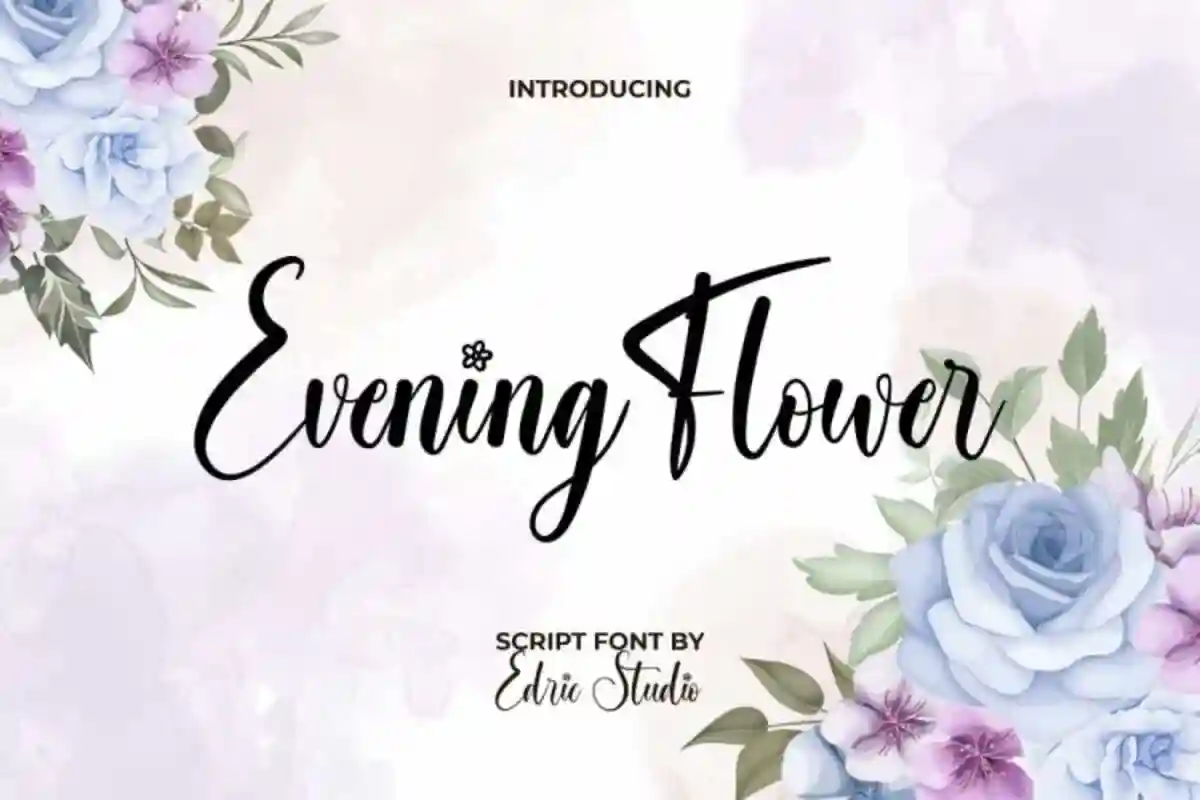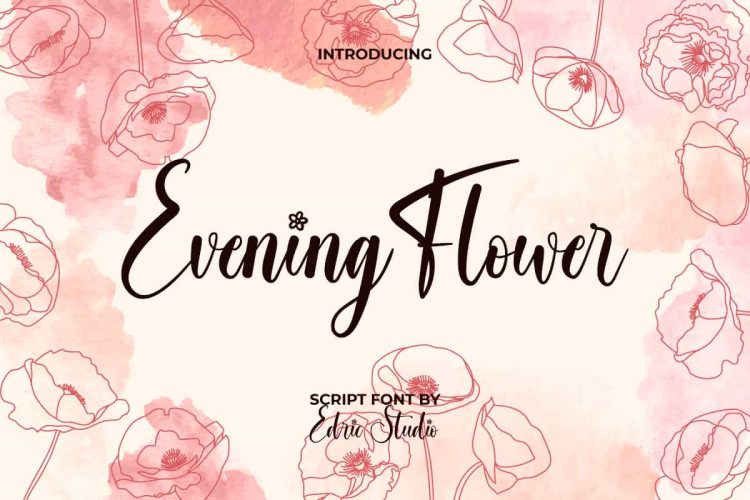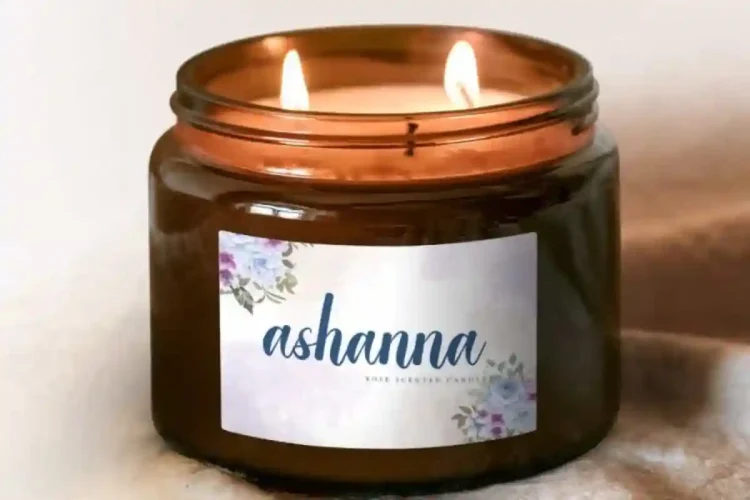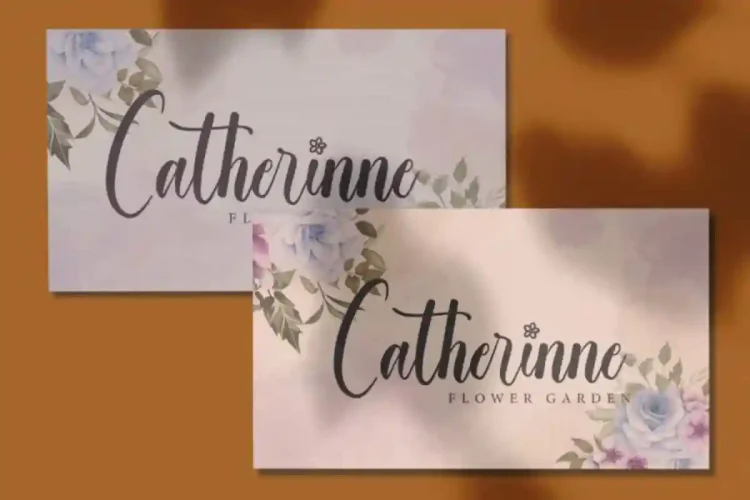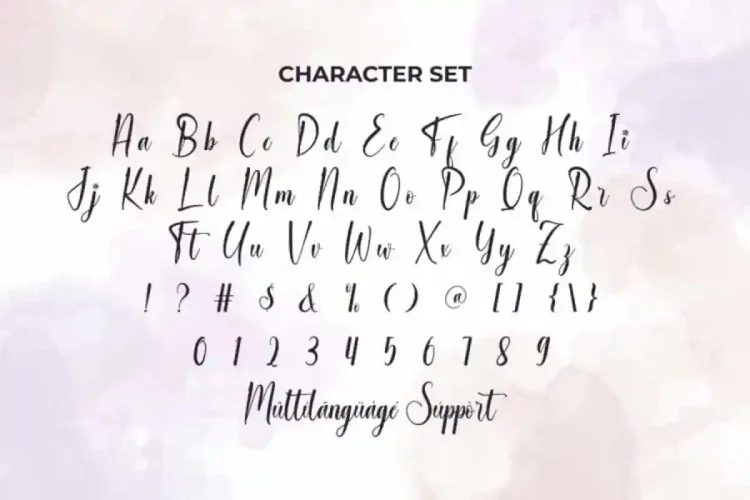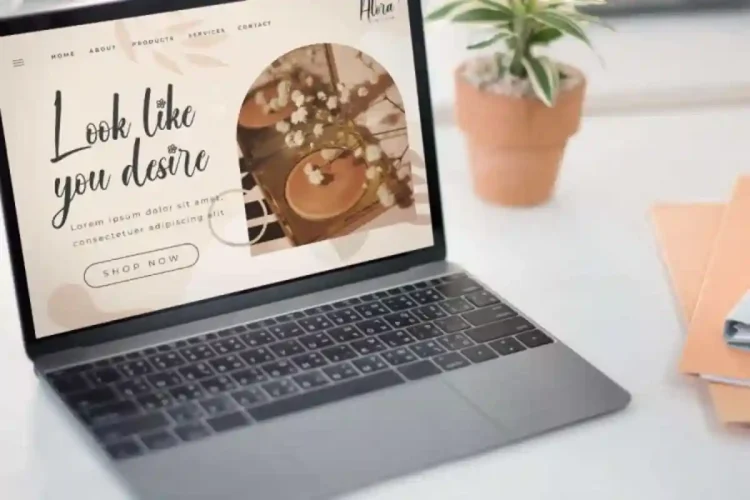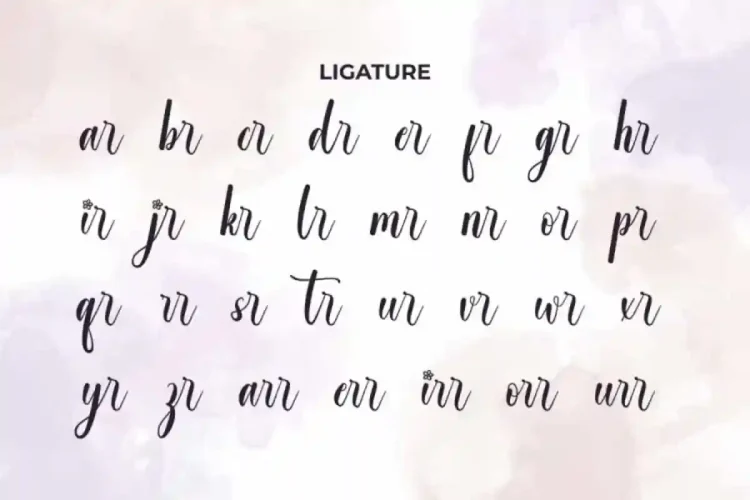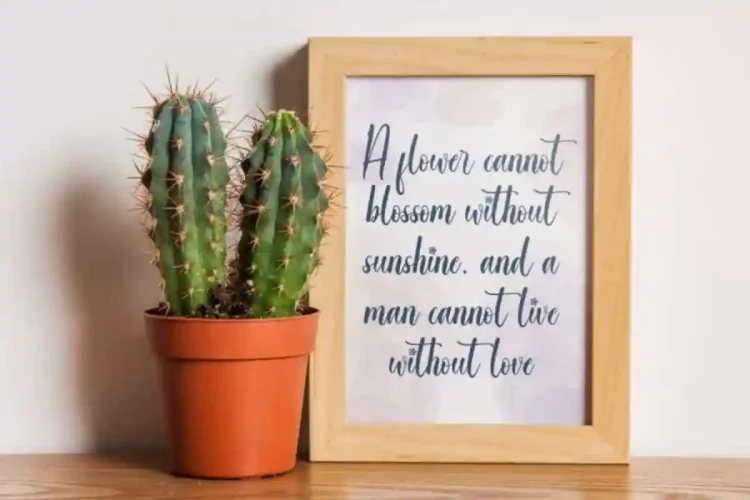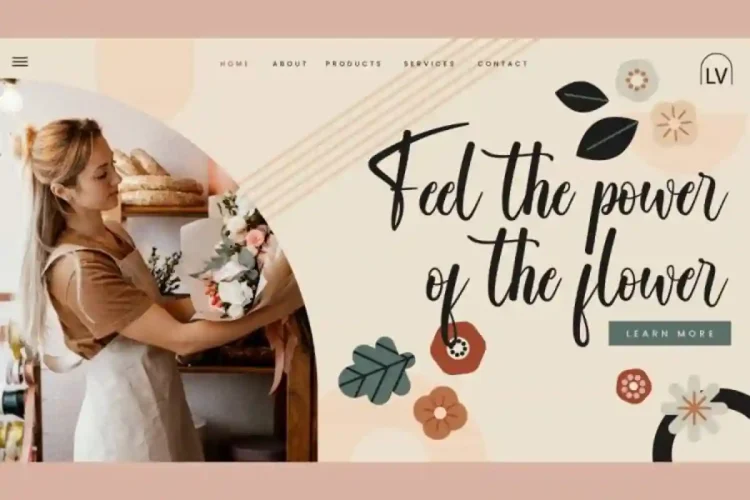
Evening Flower Script Font
Evening Flower Script Font is a beautiful script font with lovely calligraphic style. Bring a touch of beauty and elegance to your creative projects with a graceful script font designed to flow like flowers swaying in the wind.
Evening Flower Script Font with smooth strokes and stylish details, Evening Flower Font instantly elevates your designs. It has a full set of Basic Uppercase and Lowercase Characters, Numbers, Punctuation and Symbols, and Ligature.
Evening Flower Font is a playful typeface with unique decoration in each character. It’s tested to work well in the Adobe Apps (Illustrator, Adobe InDesign, Adobe Photoshop) even work on Microsoft Word. All of these characters are available through the glyph panel, moreover each letter has its own unicode (PUA) so you can access all the characters easily.